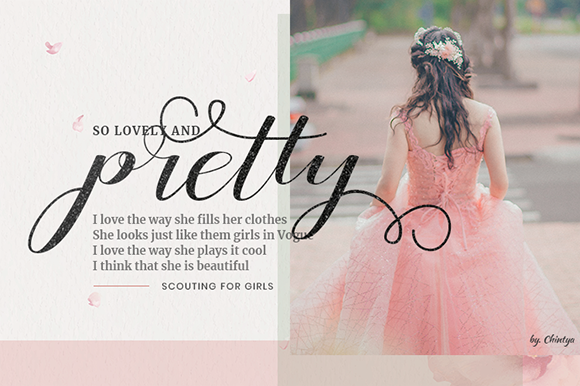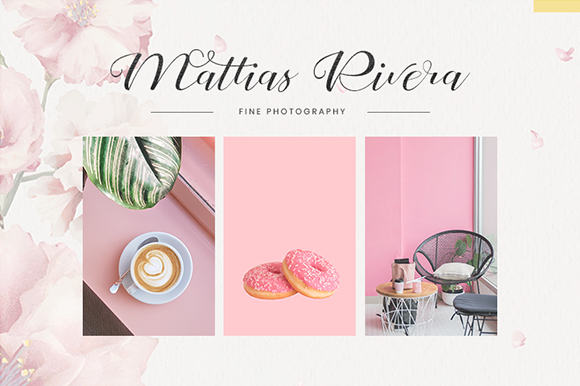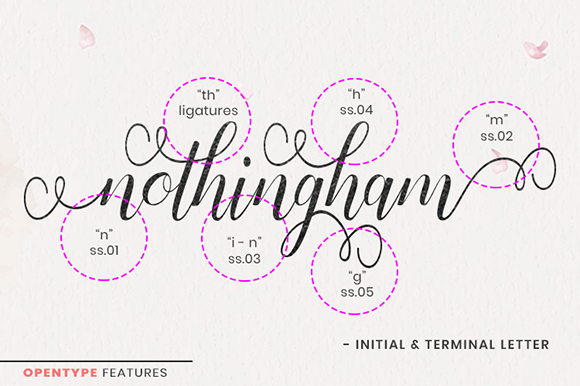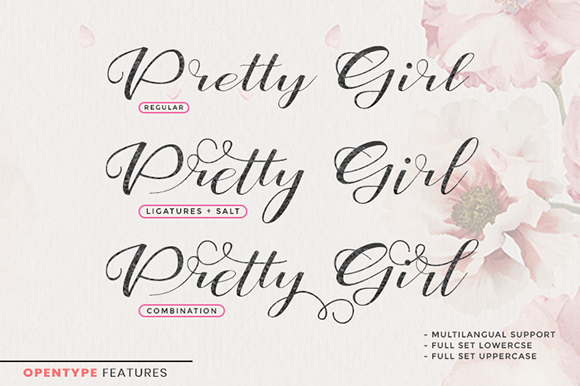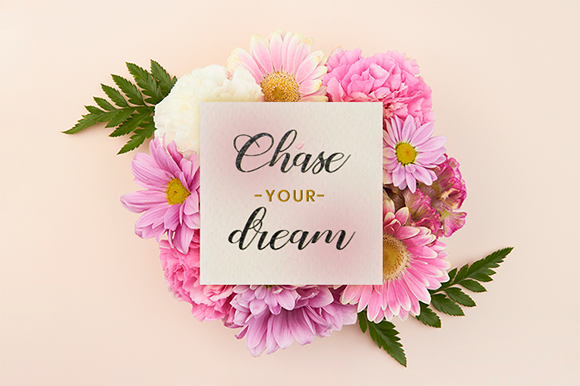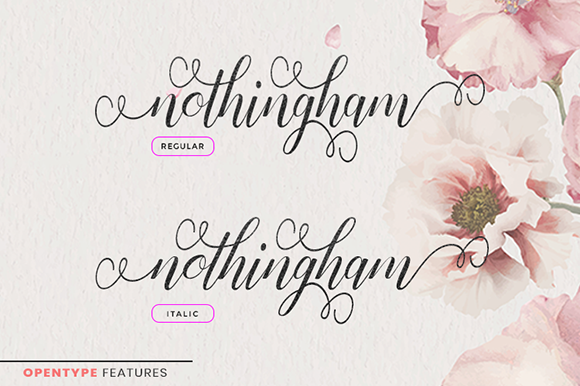
HomeScript FontsNothingham Script Font Script Fonts Nothingham Script Font FacebookXPinterestWhatsApp Nothingham Script Font Poster 2 Nothingham Script Font Poster 3 Nothingham Script Font Poster 4 Nothingham Script Font Poster 5 Nothingham Script Font Poster 6 Nothingham Script Font Poster 7 About Nothingham Script Font Nothingham Script is a beautiful script font that has a classy, elegant, and modern look. DOWNLOAD NOW People also explored Display Roman JNL Font Blessed Morning Font Love Julia Font Magoline Font Decolite Winter Font Hot Springs Font Lorelei Font Christmas Font Hello August Font 329 0 TagsNothingham Script Font Previous articleBesttea FontNext articleIndependent Font LEAVE A REPLY Cancel reply Comment: Please enter your comment! Name:* Please enter your name here Email:* You have entered an incorrect email address! Please enter your email address here Website: Save my name, email, and website in this browser for the next time I comment. Personal Use Free Tahu Font Personal Use Free Read more about this font Gaboed Personal Use Free Read more about this font Degrassi Personal Use Free Read more about this font Love Memories Personal Use Free Read more about this font BLOG Top 10 Handwritten Fonts That Elevate Your Designs Top 10 Handwritten Fonts That Will Elevate Your Designs Handwritten fonts bring a warm, personal touch to every creative project. Whether you're designing logos, invitations,... Best Fonts for YouTube Videos: Make Your Thumbnails Stand Out Transform Your Website: Elevate Your Typography with 7 Best Web Font Generators Top 7 Google Fonts Alternatives for Faster and Privacy-Friendly Web Design (2025)